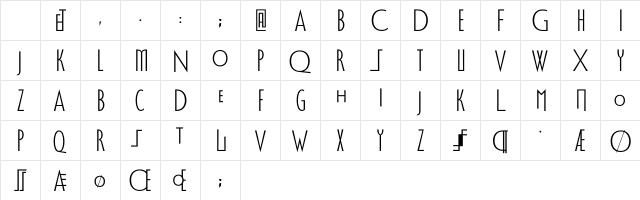
Complete VereDignum LT Std Alternate Regular glyph index. Displaying only characters natively supported by VereDignum LT Std Alternate Regular font.
VereDignum LT Std Alternate is a composed and adaptable typeface that performs quietly and consistently across a wide range of design contexts. Its slender proportions lend an understated elegance to any composition.